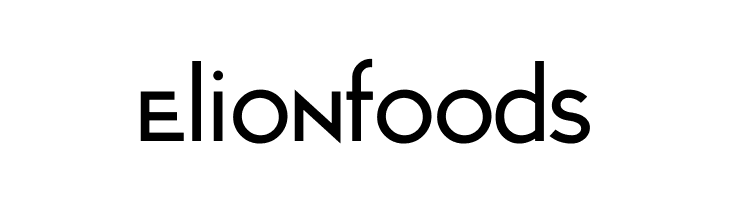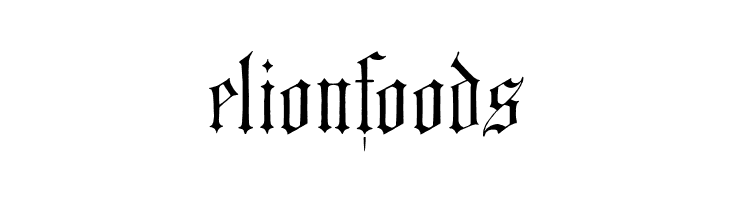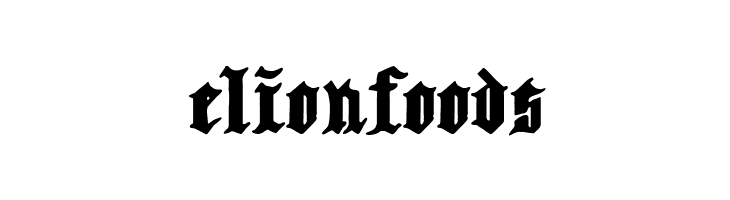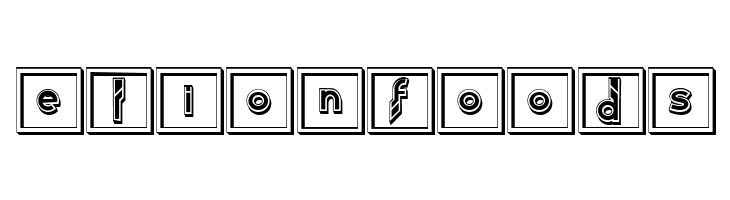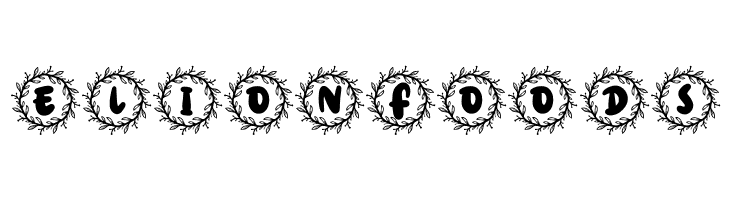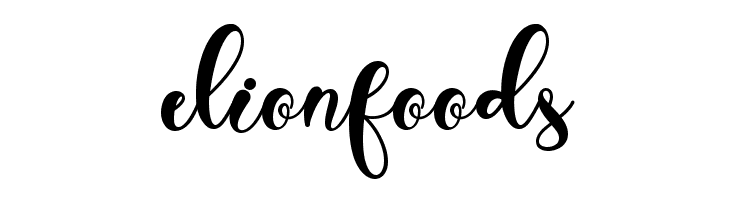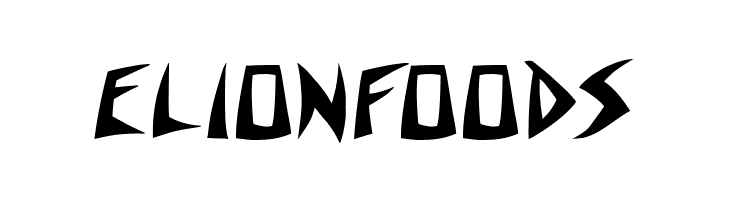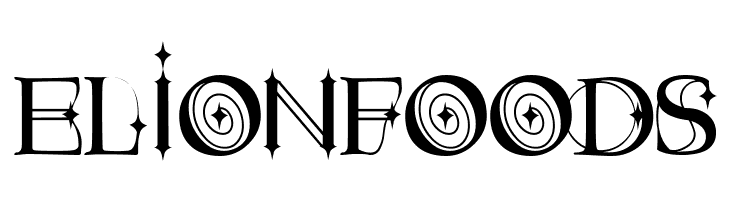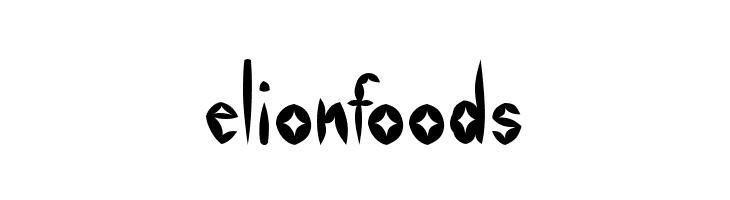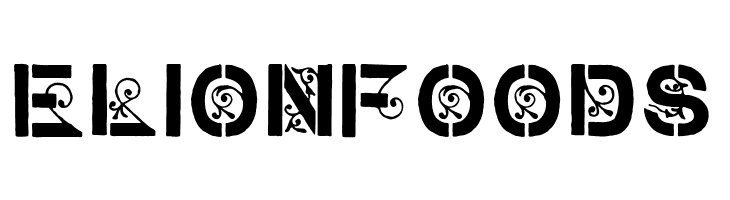
( Fonts by Alpaprana Studio )
A bold, decorative font with characters encased in thorny wreaths.
( Fonts by Yoga Letter )
A bold, geometric font with decorative elements enclosed in square frames.
A bold, decorative stencil-style font with intricate floral patterns.
( Fonts by www.fontdiner.com )
A bold, stencil-style font with geometric uniformity and high legibility.
( Fonts by Moka Type Studio )
A classic serif font with elegant strokes and a modern twist.
A dripping, edgy font with a dynamic and eerie appearance.
( Fonts by Aly K. Salazar )
A gritty, distressed font with a hand-drawn, urban style.
( Zetafonts - www.zetafonts.com )
A modern, geometric sans-serif font with clean lines and balanced spacing.
( Zetafonts - www.zetafonts.com )
A bold, italic font with a modern and dynamic style.
( Fonts by Yoga Letter )
A whimsical and elegant script font with flowing, interconnected letters and decorative swirls.
( Fonts by Yoga Letter )
A decorative font with summer-themed elements like palm trees and waves.
( Fonts by Yoga Letter )
A bold, Gothic-inspired font with sharp, angular characters and a medieval flair.
( Fonts by Go Letter )
The image contains decorative monogram-style swirls, not a valid font.
( Robert Gotham - www.andeverythingisfine.com/ )
A whimsical, hand-drawn font with irregular lines and playful character.
( Roger White - web.archive.org/web/20120416090521/www.rogersfonts.org.uk/ )
A sleek, modern font with a dynamic slant and bold, condensed characters.
A classic blackletter font with ornate, angular letterforms and a traditional gothic style.
( Fonts by Tom Chalky )
An ornate blackletter font with high contrast and gothic flourishes.